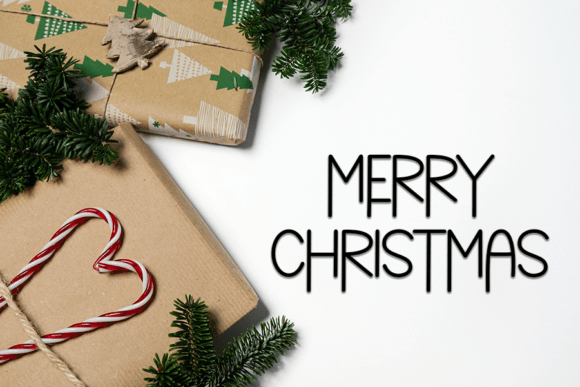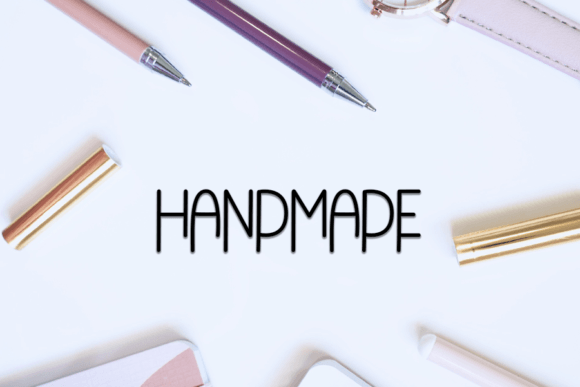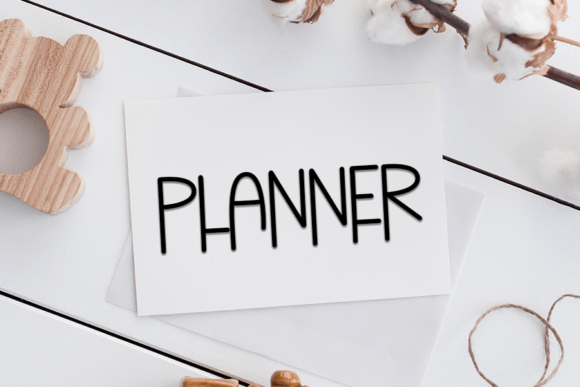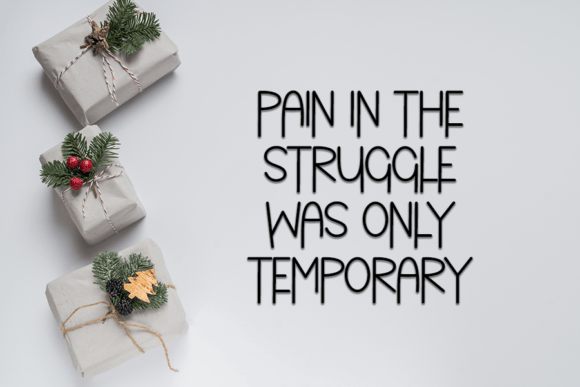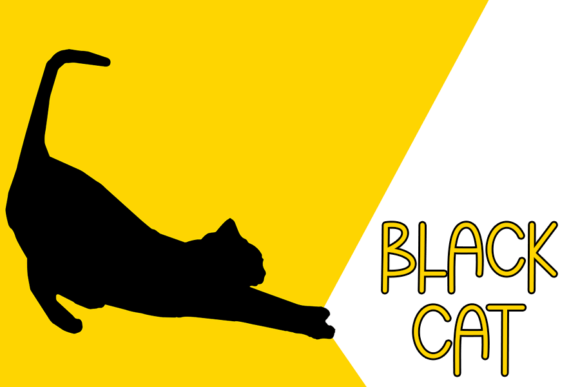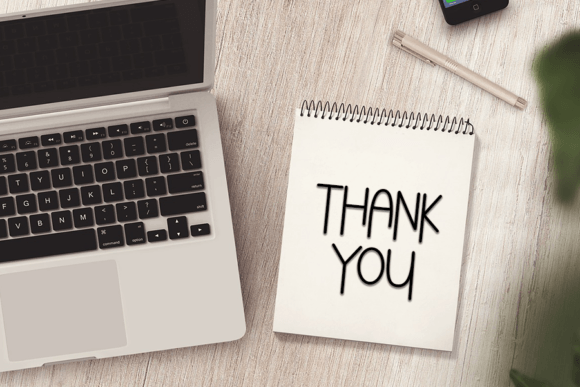
The Perfect Grinch to Your Heart: Introducing Grinch Font
Have you ever been stuck on a design project, scrolling through font options, only to come across the perfect one that makes your heart skip a beat? For designers, that moment is pure magic. It’s the moment when you know you’ve found your perfect match. For some, that perfect font is Grinch Font – a cool and modern sans serif font that’s about to steal the show.
Grinch Font is the perfect tool for any creative project, whether you’re crafting, designing digitally, creating presentations, or making heartfelt greeting cards. Its versatility and modern feel make it an invaluable addition to any designer’s toolkit. With Grinch Font, you’ll be able to bring your ideas to life in a way that’s both stylish and professional.
So, what makes Grinch Font so special? Its sleek design and modern aesthetic make it the perfect choice for designers looking to add a touch of sophistication to their work. With Grinch Font, you’ll be able to create stunning designs that are sure to impress.
Key Features of Grinch Font
- Font Family: Grinch is a custom-designed font, which means it’s not a standard font family.
- Font Size: The font size is scalable, making it suitable for various applications, from print to digital media.
- Resolution: Grinch Font is designed to work well at high resolutions, up to 300 DPI for print and 96 DPI for digital screens.
- Unique Characteristics: The font features a unique, hand-drawn style with bold lines and a distinctive character set, making it perfect for adding a touch of whimsy to designs.
- Character Set: The font includes a wide range of characters, including Latin, Cyrillic, and Greek alphabets, as well as punctuation marks and symbols.
Grinch Font Review
Overall, I’d say the Grinch Font is an interesting choice for designers looking for a unique and playful font.
- Quirky and playful style: The Grinch Font is perfect for designs that need a bit of whimsy and fun.
- Good for headings and titles: The font’s bold and striking design makes it ideal for headings and titles.
- Easy to read: Despite its quirky style, the font is still easy to read, especially in larger font sizes.
- Limited versatility: The font’s style is quite specific and may not be suitable for all types of designs.
- May be too loud: The font’s bold design can be overwhelming in certain contexts, making it difficult to read or notice other design elements.
- No subtlety: The font’s playful style can be too much, especially in designs where a more subtle approach is needed.
The Grinch Font is a fun and unique choice for designers, but it’s not for every project. It’s perfect for designs that need a playful touch, but may not be suitable for more serious or professional projects.
Tip: Use the Grinch font for titles and headings to create a bold and eye-catching effect.
Tip: Use the Grinch font for creating custom graphics and illustrations.
Tip: Use the Grinch font for creating presentations and documents with a unique and playful touch.
The Grinch font is perfect for:
- Children’s books and educational materials.
- Party invitations and decorations.
- Humorous and playful designs.
Remember to use the Grinch font in moderation to avoid overwhelming your design.